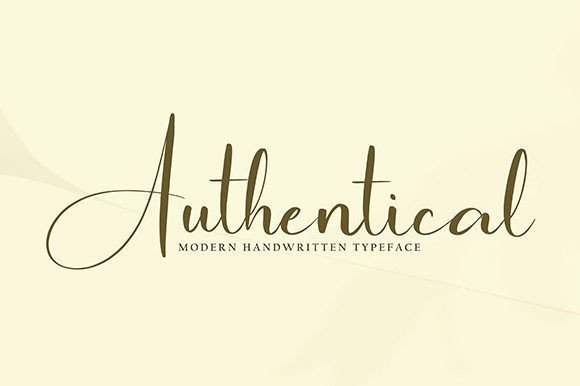
The Quest for the Perfect Font: Discovering Authentical
I still remember the countless hours I spent searching for the ideal font for a client’s branding project. The goal was to find something that exuded confidence, modernity, and a touch of elegance. As a designer, you’ve likely been in similar situations, scouring font libraries and testing various options. That’s when I stumbled upon Authentical, a stylish script font that quickly became my go-to choice.
Authentical: A Modern Script Font with a Twist
Authentical is a stunning script font that boasts flowing lines, bold curves, and a unique, modern twist. Its clean and legible style ensures that it stands out from the crowd, making it perfect for branding, social media, and advertising campaigns. The font’s confident and authentic vibe is sure to elevate your designs and leave a lasting impression.
- ✅ Unique and modern script style
- ✅ Clean and legible, even at small sizes
- ✅ Perfect for branding, social media, and advertising
- ✅ Extensive OpenType features and glyphs
- ⚠️ Limited use in very formal or traditional designs
- ⚠️ May not be suitable for body text or long-form content
- ⚠️ Some characters may require manual kerning
The Story Behind Authentical
Authentical was designed with the goal of creating a modern script font that exudes confidence and authenticity. The designer’s inspiration came from a combination of traditional calligraphy and modern digital design. The result is a font that is both elegant and approachable, perfect for a wide range of design applications.
| Font Name | Authentical Font |
| Author | Pineungtype & Missinklab |
| What is Authentical best suited for? | Authentical is perfect for branding, social media, and advertising campaigns where a modern and confident font is needed. |
| Can I use Authentical for body text? | While Authentical is legible, it’s recommended to use it for headlines and titles rather than body text or long-form content. |
| Does Authentical come with OpenType features? | Yes, Authentical comes with extensive OpenType features, including stylistic alternates, glyphs, and swashes. |
| Is Authentical suitable for formal designs? | Authentical has a modern and elegant style, but it may not be suitable for very formal or traditional designs. |